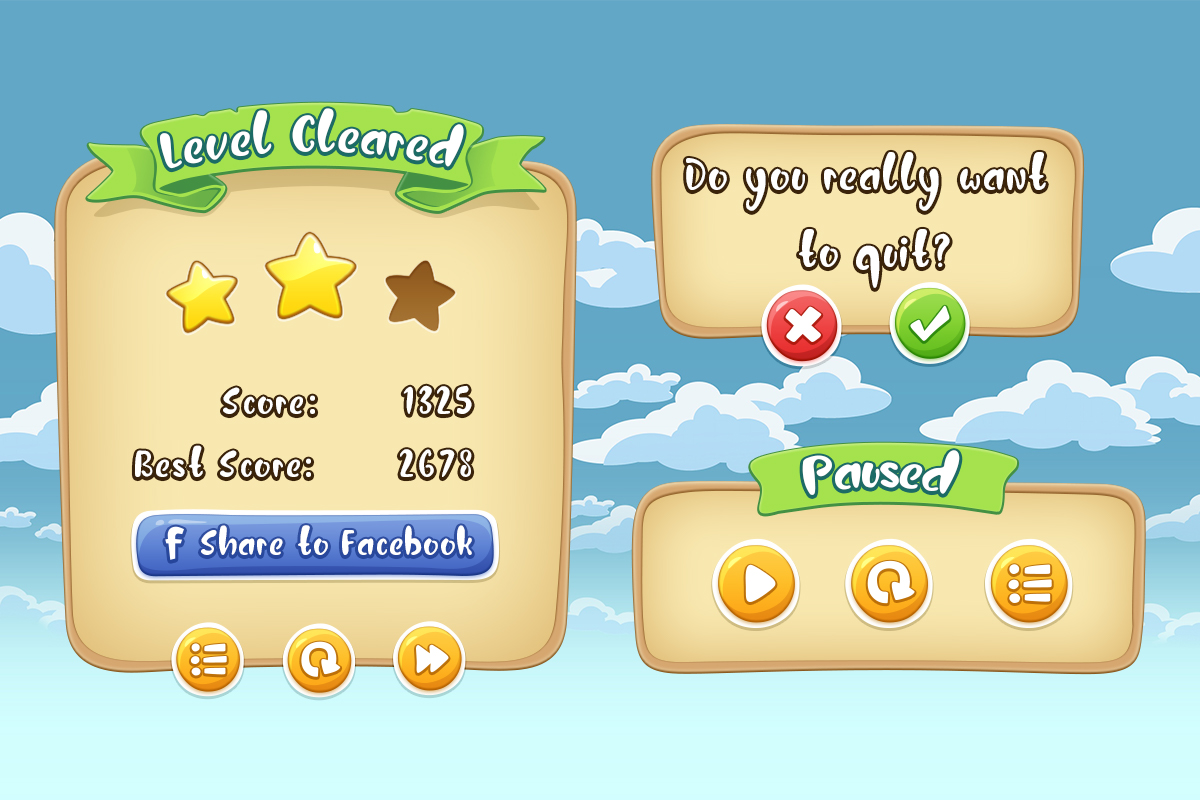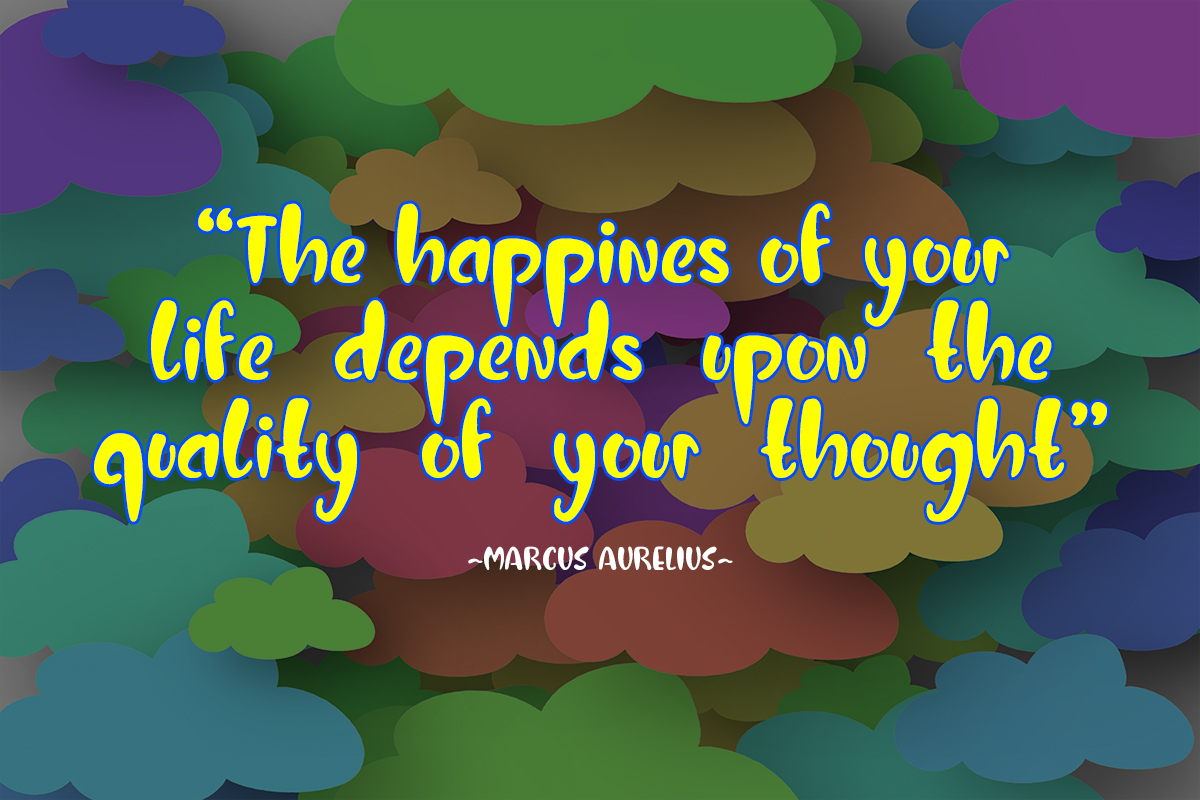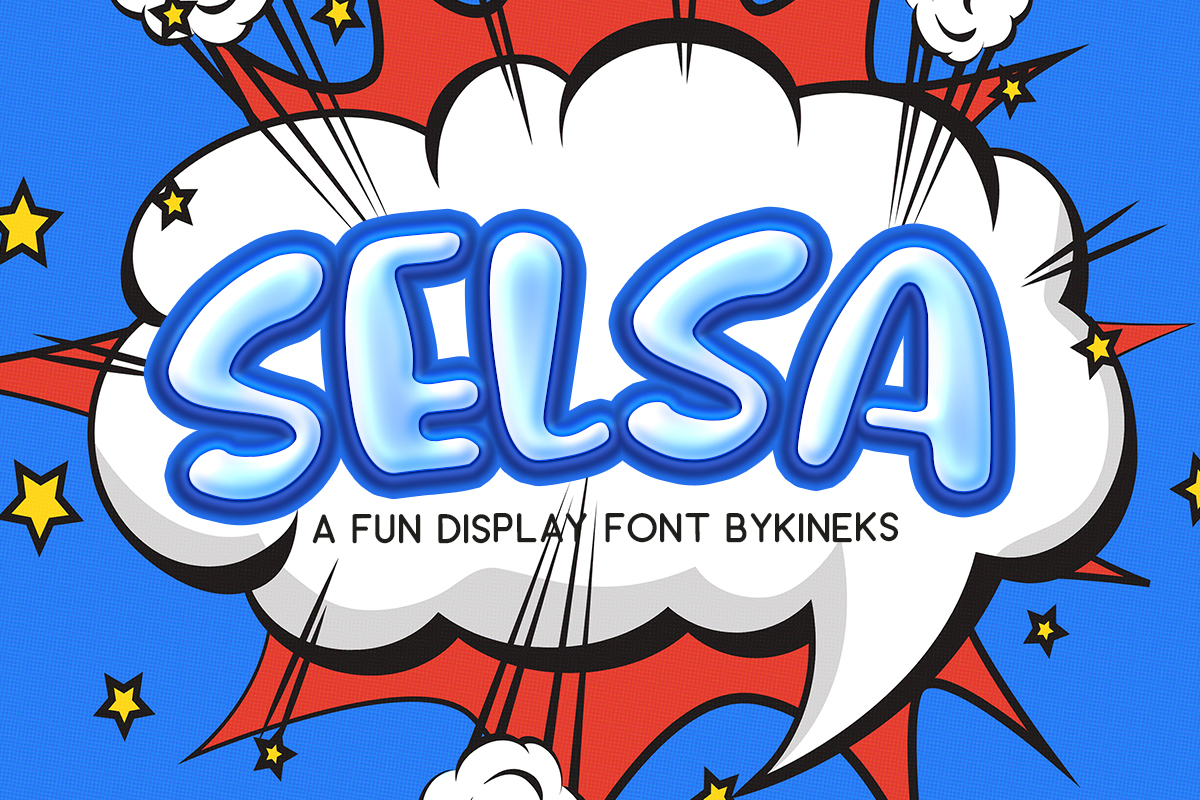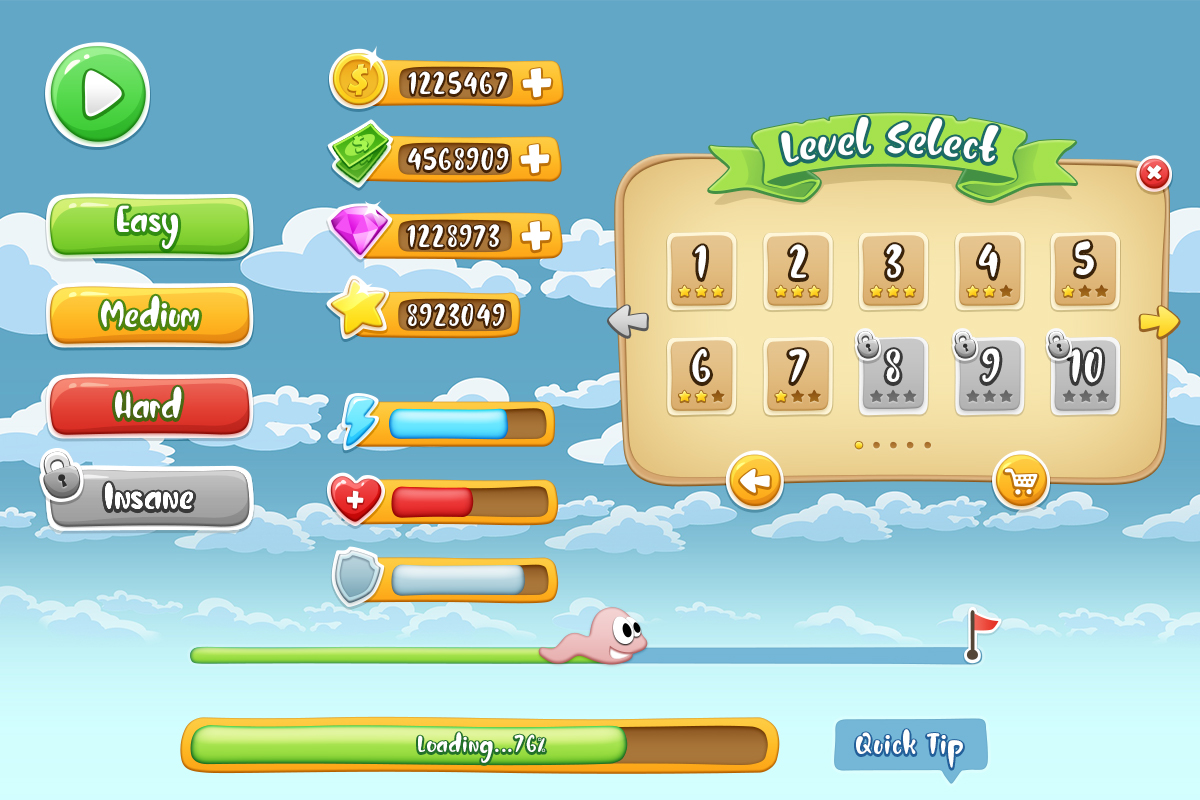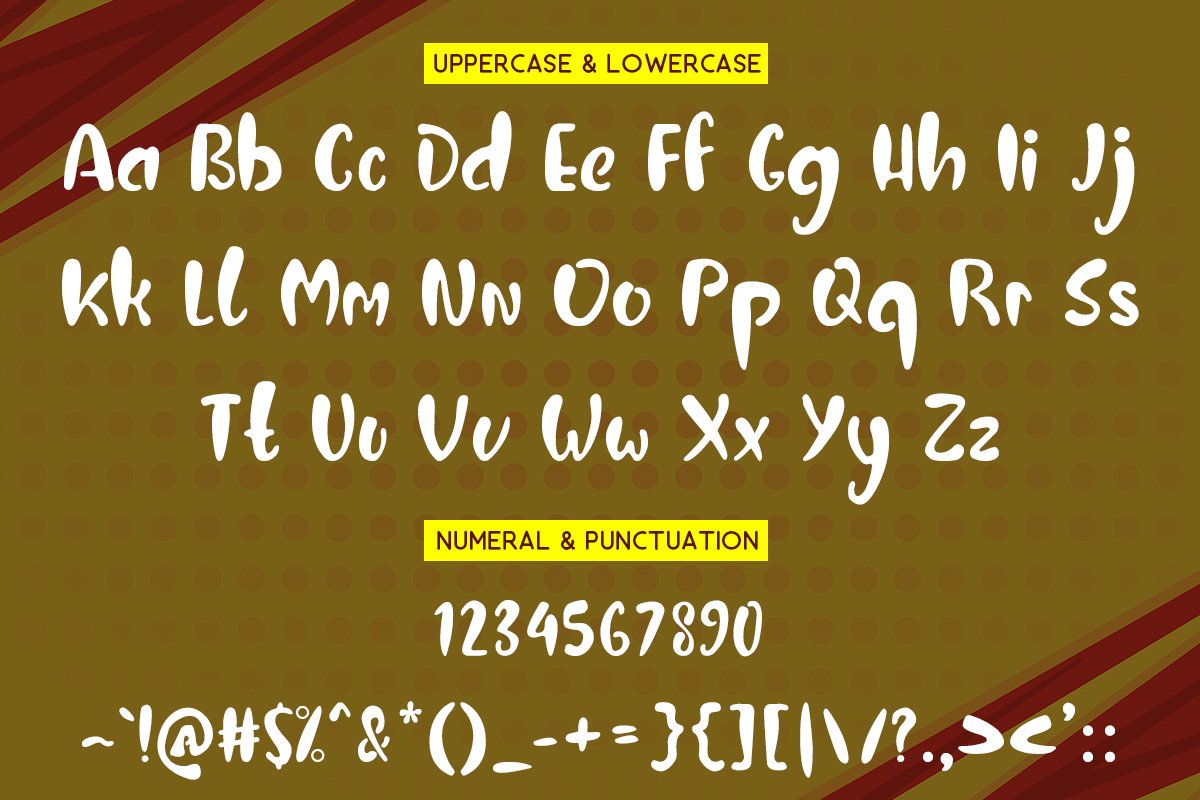
Selsa Display Font
It’s a fun, bubbly and joyful handwritten font. Whether you are using it for cartoon-related designs, children games, quotes, titles, brand names, book covers, posters, or just any creation that requires a touch of joy, this font is a great choice.